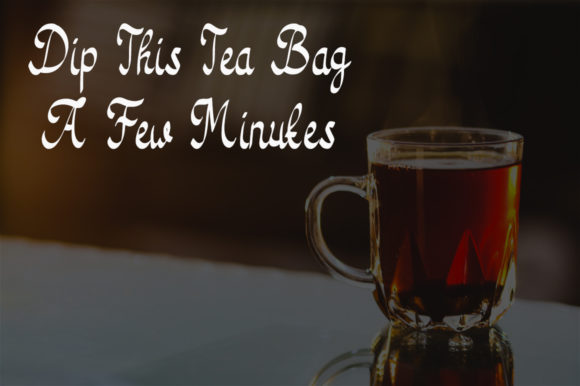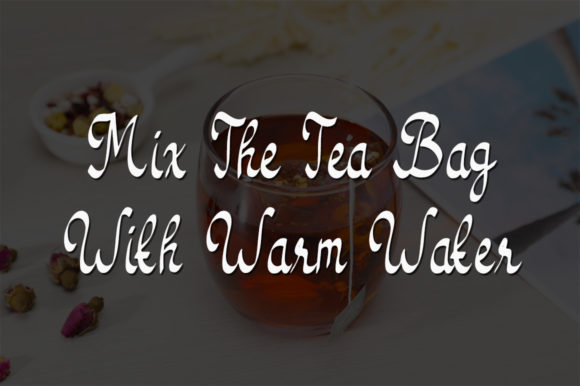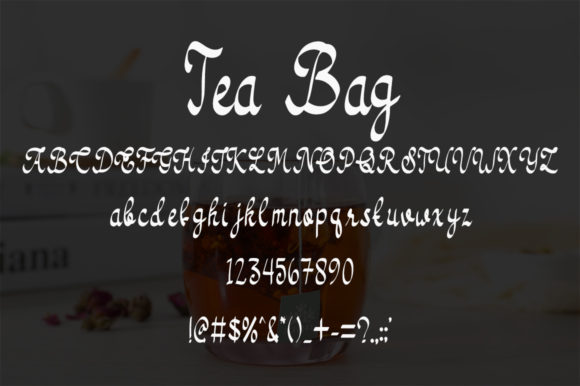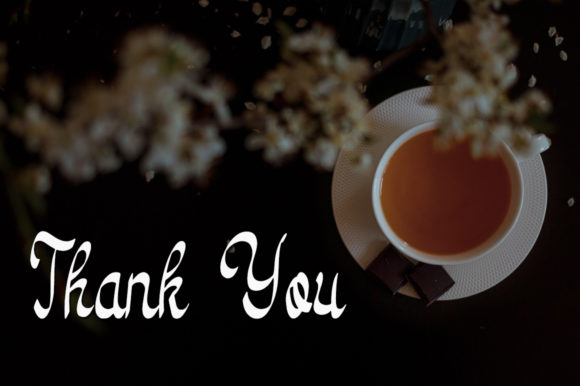
Tea Bag Font
About Tea Bag Font
Introducing “Tea Bag,” a flowing handwritten font that exudes elegance and charm. Its graceful touch and timeless style make it a perfect choice for your favorite design projects. Prepare to be captivated by its distinct allure and watch as it adds a touch of sophistication to your creations, allowing you to craft truly spectacular designs!
“Tea Bag” is the font that will whisk you away with its flowing strokes and enchanting appeal. Its elegance brings a sense of refinement to your designs, creating a captivating visual experience. Whether you’re working on wedding invitations, branding materials, or artful prints, this font adds an air of grace that leaves a lasting impression.
The versatility of “Tea Bag” allows it to complement a wide range of design styles and themes. From modern and minimalist to classic and vintage, this font effortlessly adapts to your creative vision, making it a reliable choice for all your projects.
Unleash your creativity and watch as “Tea Bag” enhances your designs with its elegant touch. Whether you’re crafting social media graphics, creating elegant posters, or designing packaging, this font will elevate your ideas to new heights of sophistication and allure.
Embrace the distinctiveness of “Tea Bag,” and let it be the muse for your most imaginative designs. Fall in love with its flowing and handwritten charm, and watch as it transforms your ideas into breathtaking visuals that captivate and inspire.
So, immerse yourself in the allure of “Tea Bag” and let it become your creative companion. Allow its elegant touch and timeless style to inspire your designs, turning them into spectacular works of art. Whether you’re a seasoned designer or a passionate enthusiast, “Tea Bag” empowers you to create visuals that stand out and make a statement. Let “Tea Bag” be the key to unlocking the elegance and charm in your designs, and watch as it takes your projects to new heights of beauty and excellence!